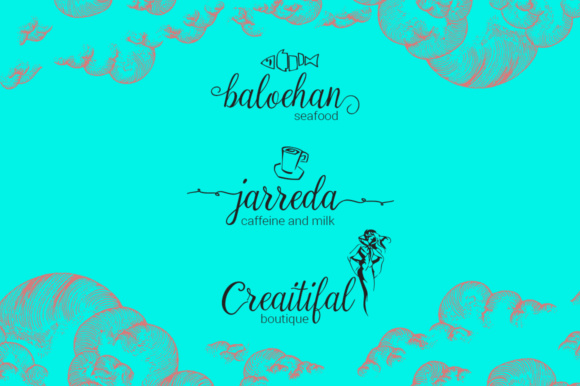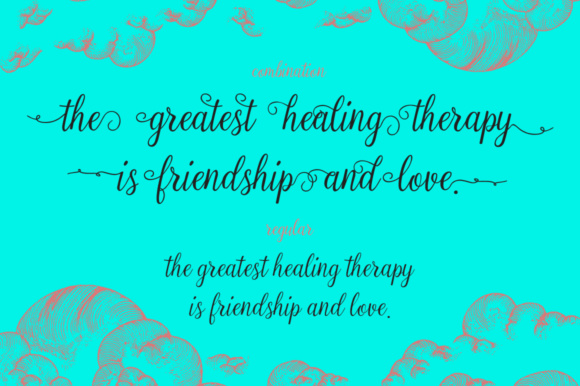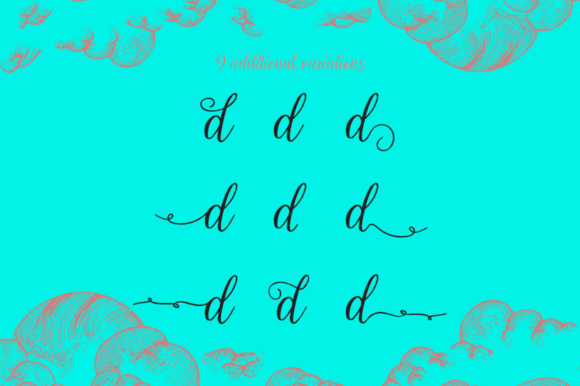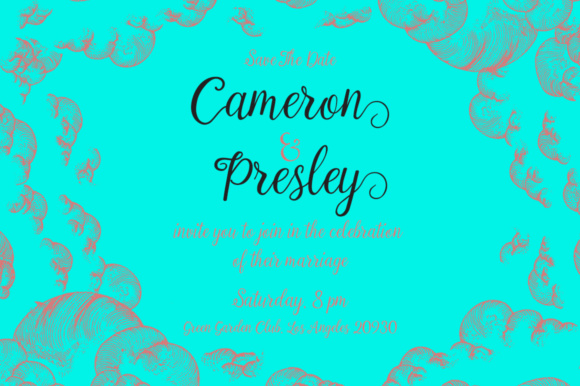
Calista Font
About Calista Font
Calista is a stunning, handwritten calligraphy font that works well in both romantic and modern designs. This script font features over 440 glyps and 215 alternate characters so you can make truly unique and beautiful designs simply.